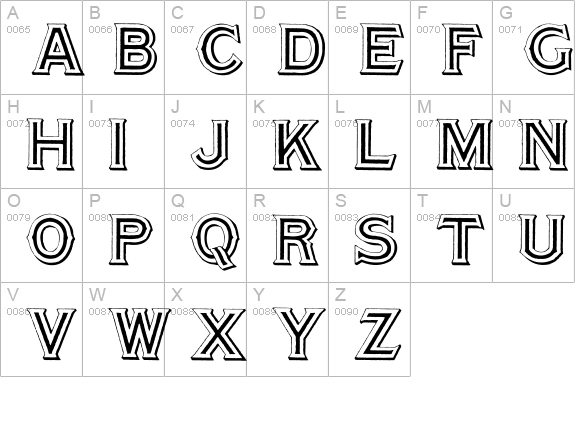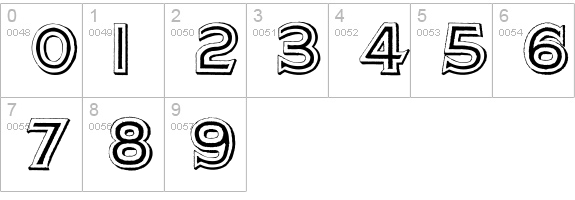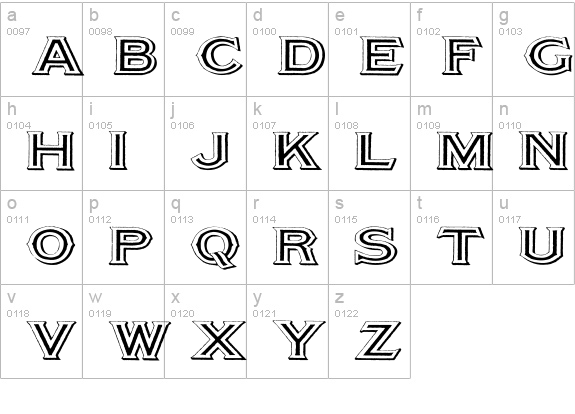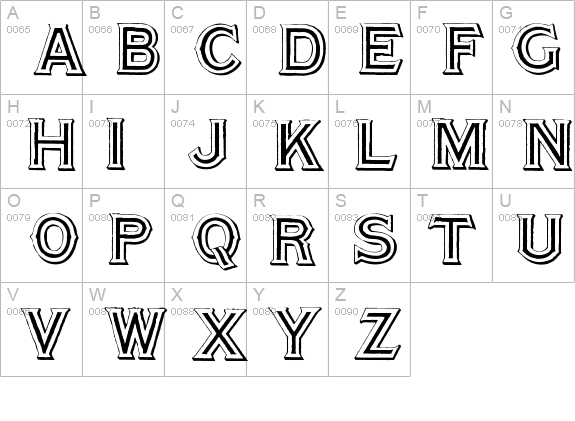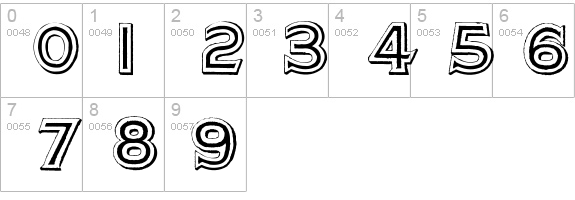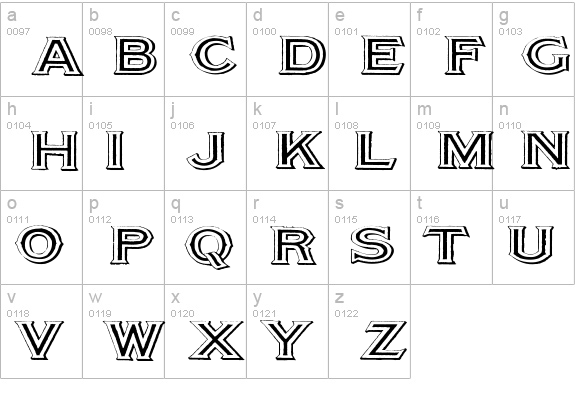
Altea Font Details
Introducing Altea font, a stunning typeface that exudes elegance and sophistication. With its sleek and modern design, Altea is perfect for a wide range of projects, from branding and logos to invitations and packaging. Its clean lines and sharp edges make it a versatile choice for both digital and print designs. One of the best things about Altea font is that it is completely free to download. Yes, you heard that right! You can easily access this beautiful font at FontsMarket.com without spending a penny. Whether you're a professional designer looking to add a fresh new font to your collection or a hobbyist looking to spice up your projects, Altea font is the perfect choice. Don't miss out on this amazing opportunity to enhance your designs with the timeless beauty of Altea font. Download it for free today at FontsMarket.com and let your creativity shine!